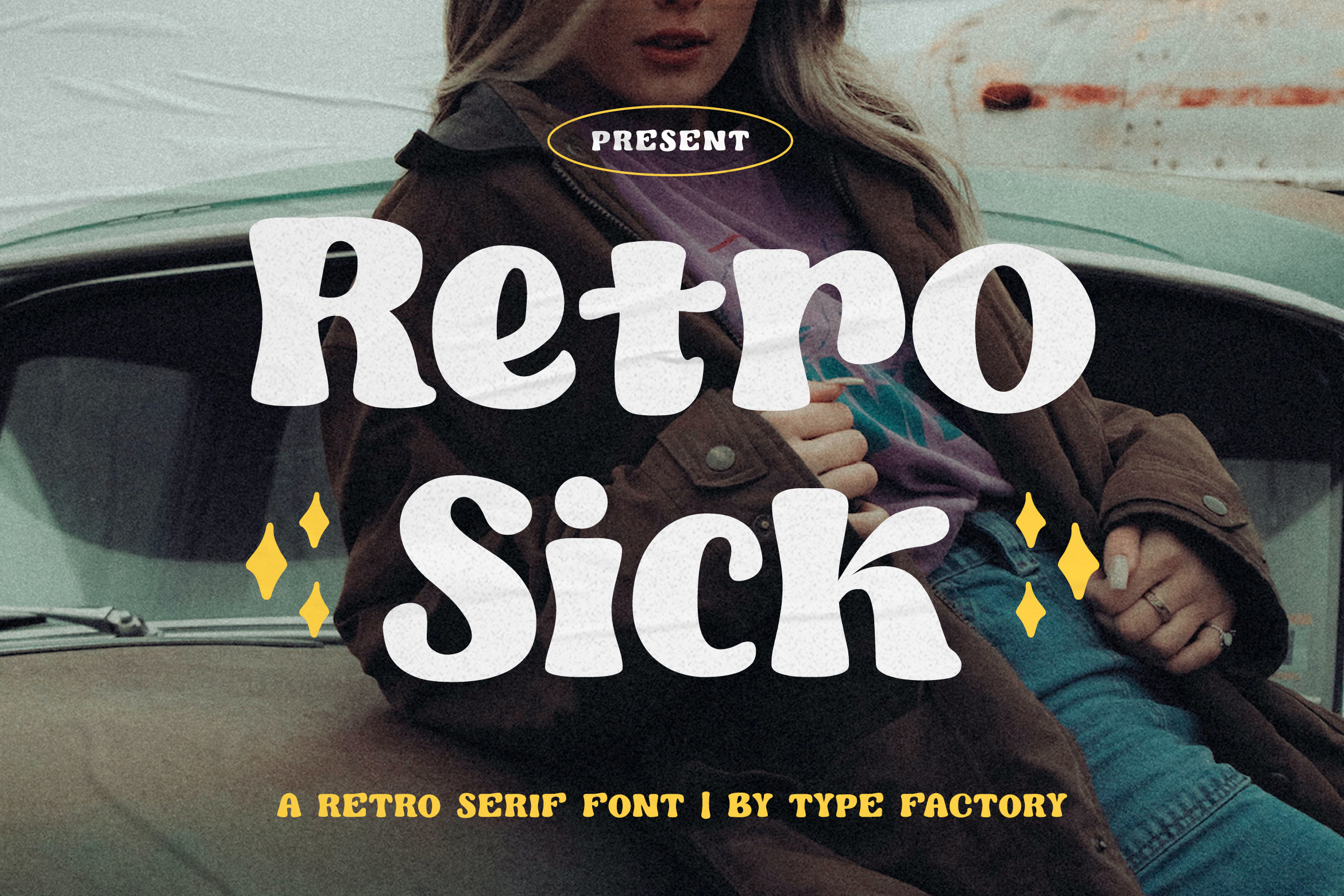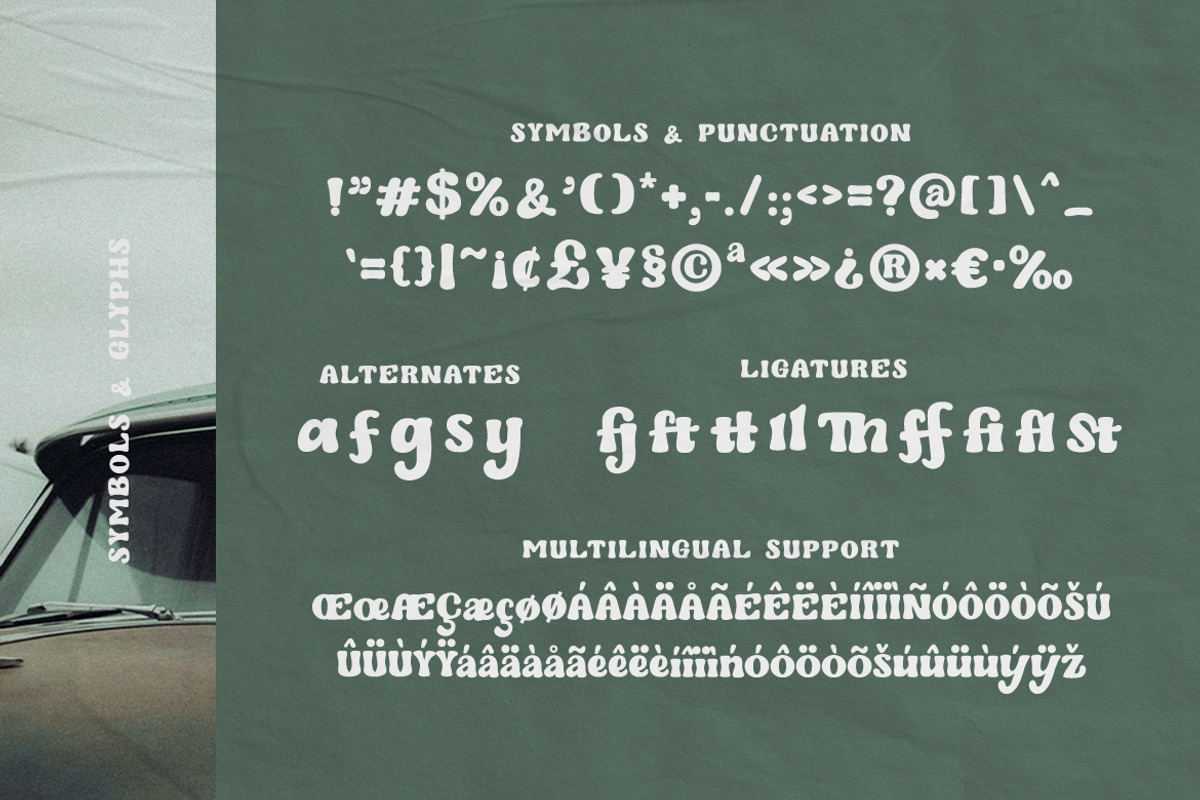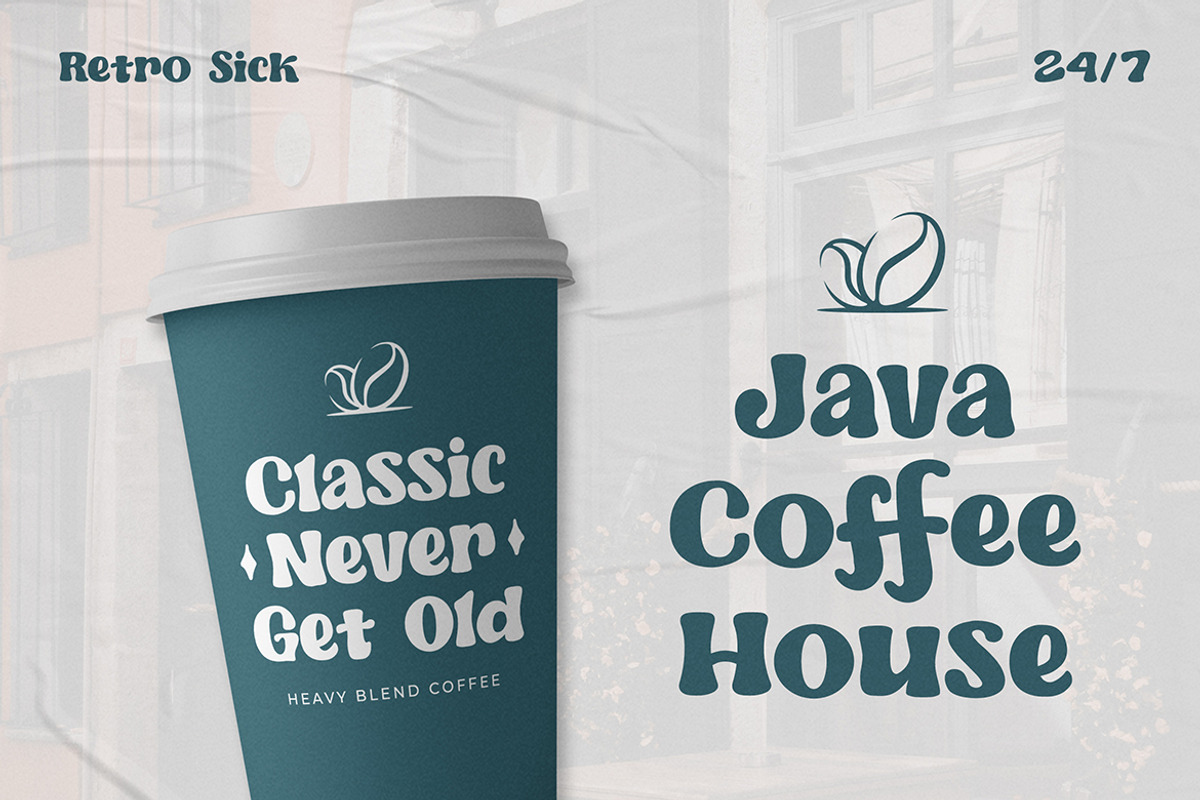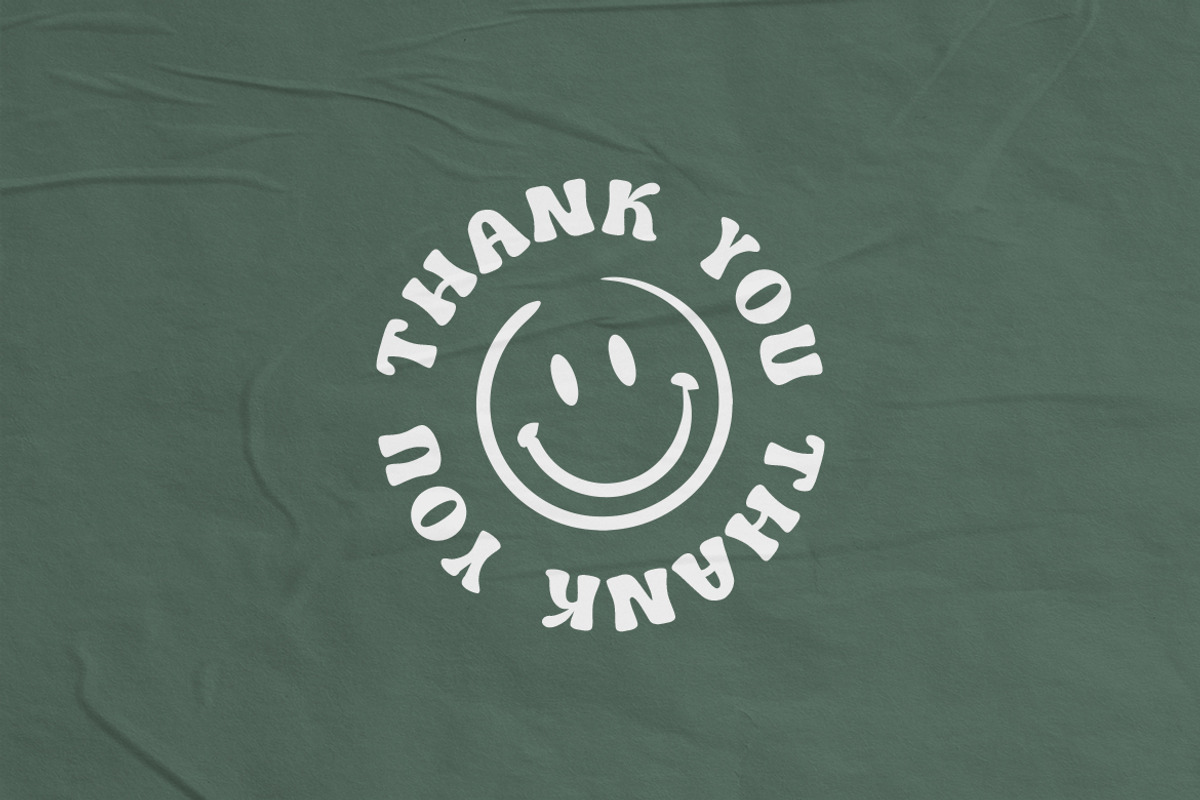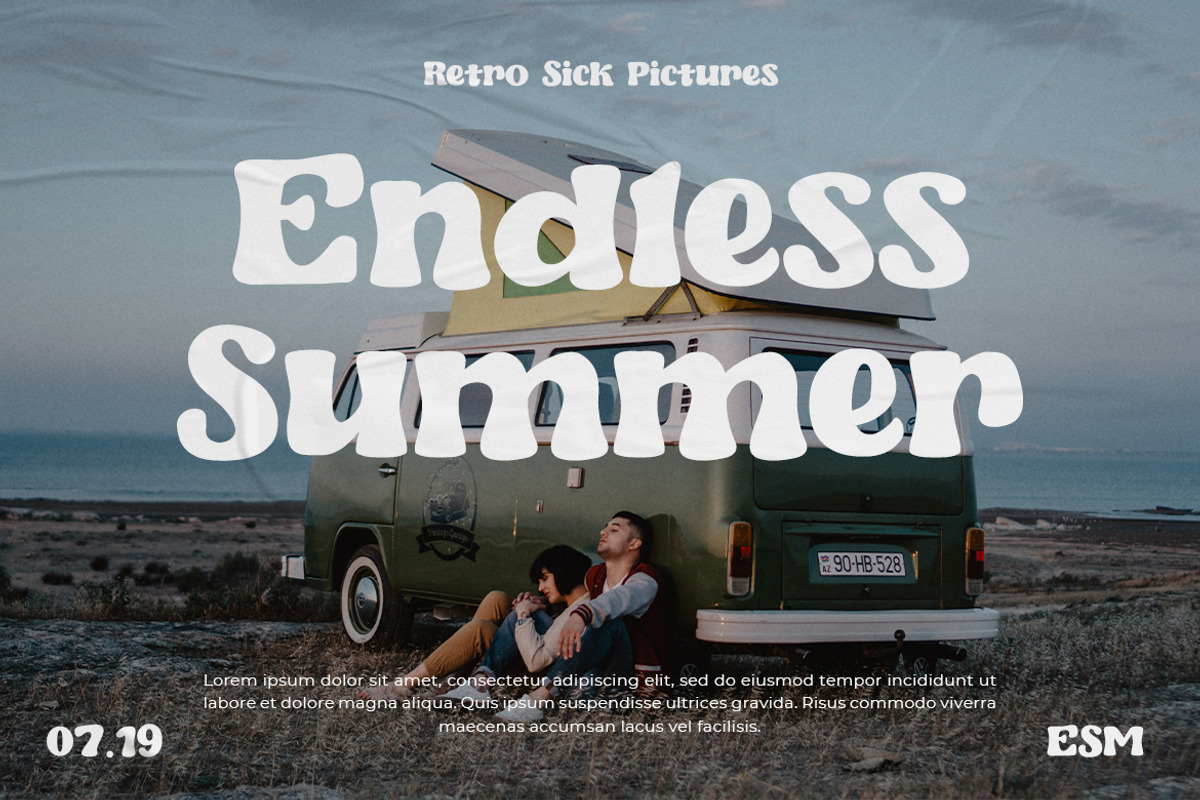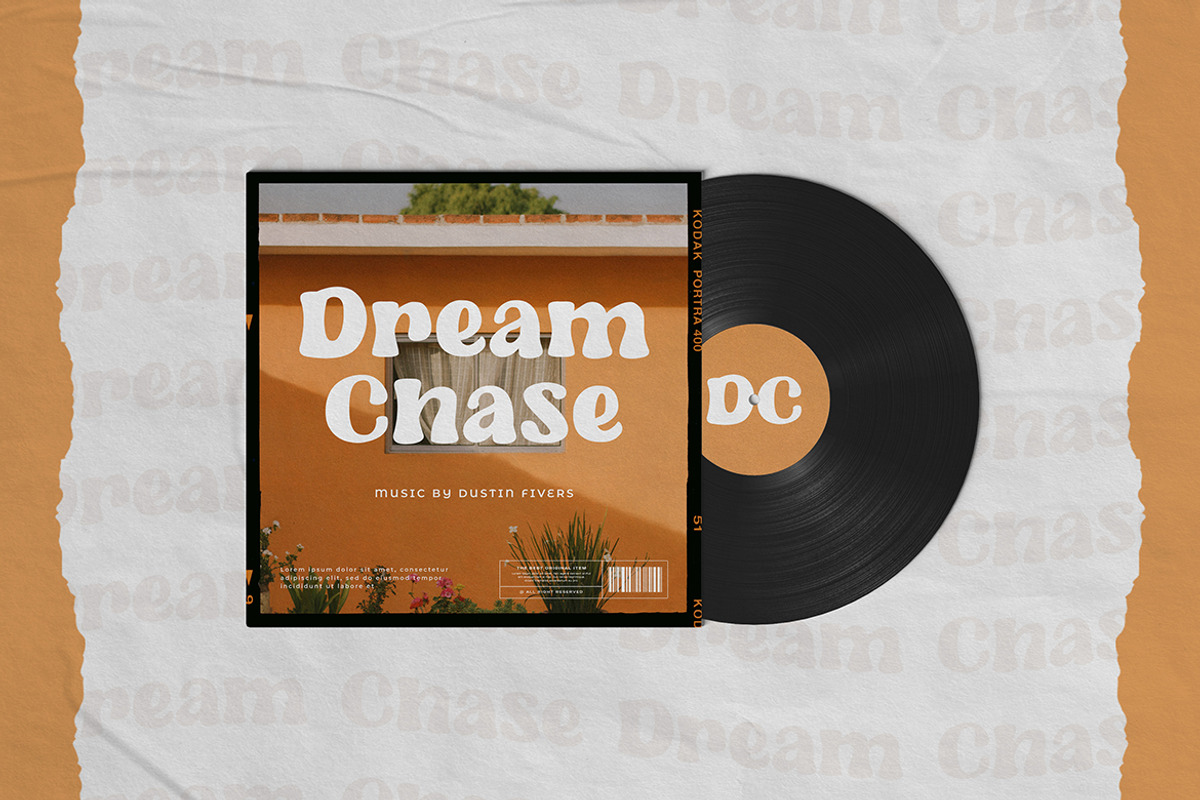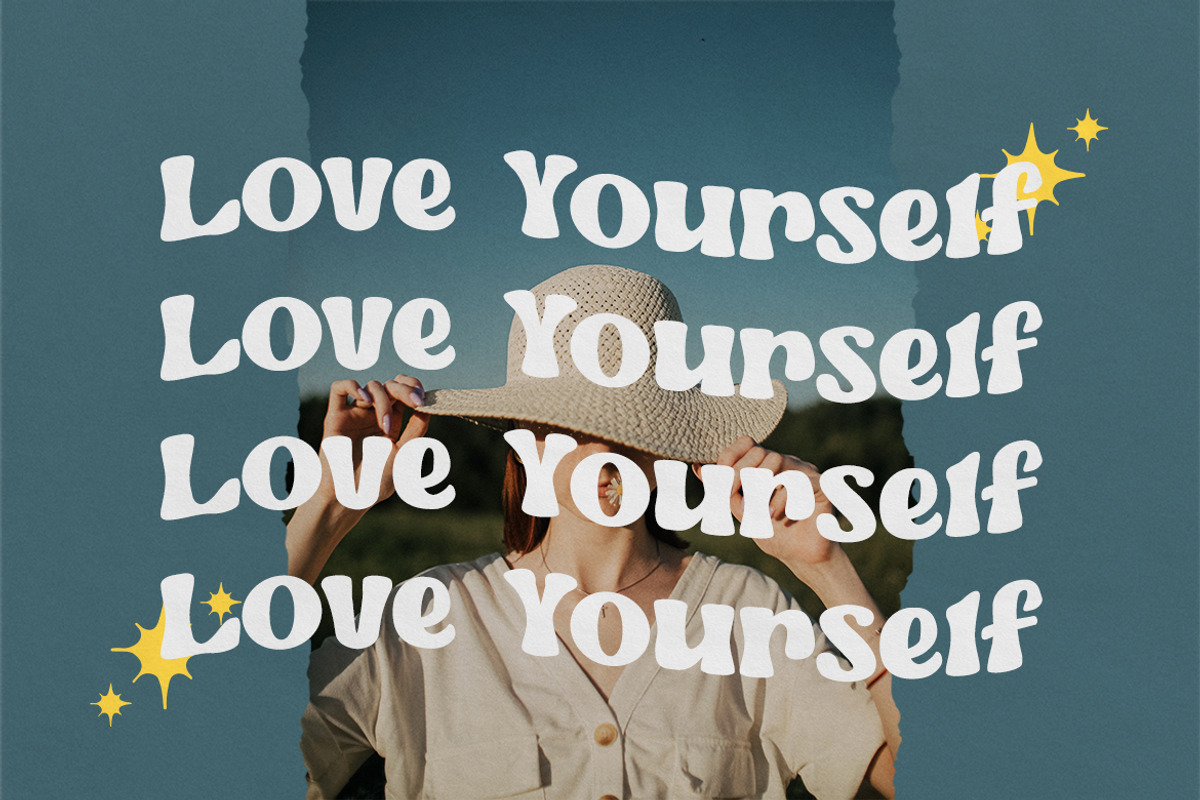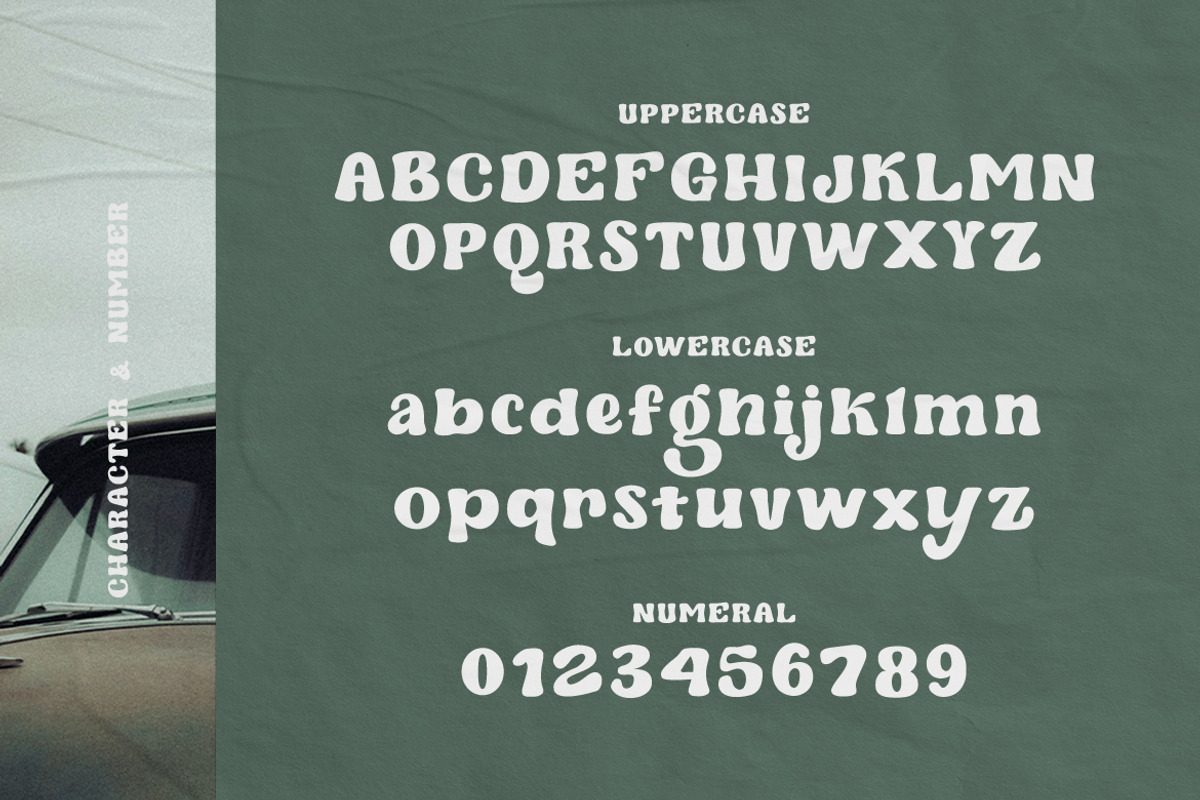
Retro Sick - Bold Serif Typeface
Retro Sick is a bold serif typeface that gives a retro aesthetic. With it’s unique & distinct characteristics it sets itself apart, while also maintaining a strong timeless appeal overall. The font will easily match a wide range of creations that require a distinct touch.
- Symbols & Punctuation
- Numeral